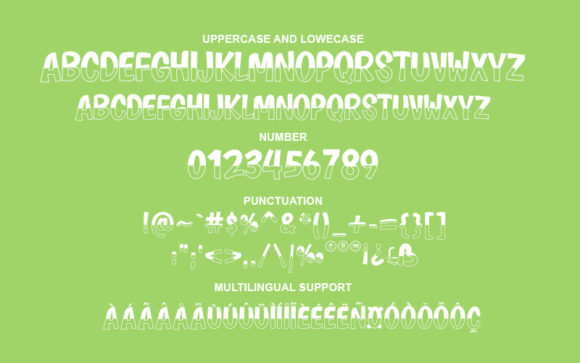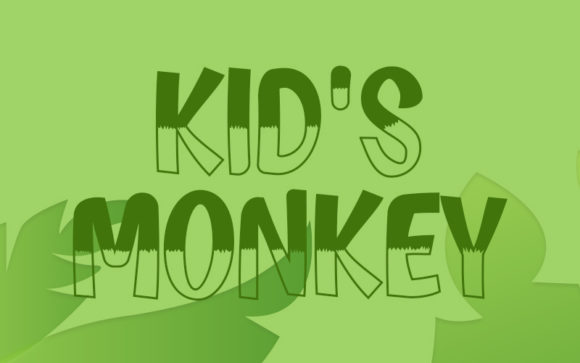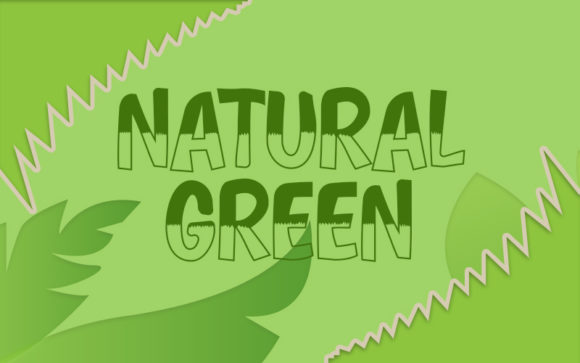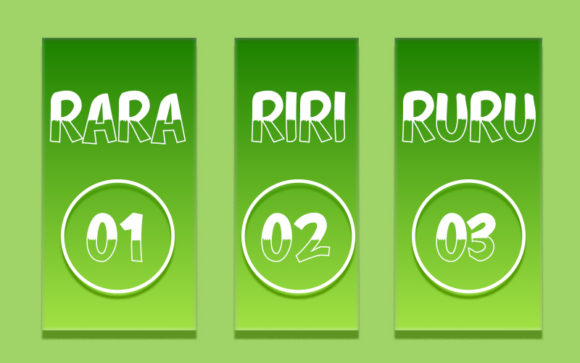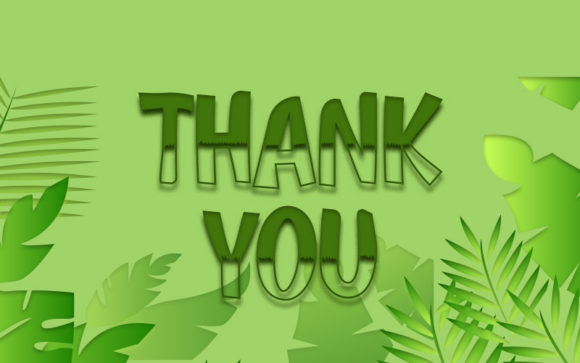
Introduction to Junggle Font
Have you ever been working on a creative project and felt like something was missing? The perfect font can make all the difference, transporting your idea from good to great. For designers, finding the right font can be a game-changer, elevating a design from bland to grand.
That’s where the Junggle Font comes in – a delightful display font that brings a touch of whimsy to any project. Its childlike playfulness is contagious, making it an ideal choice for kids and school projects, but its charm extends far beyond those realms. Whether you’re working on a logo, brochure, or social media campaign, this enchanting font is sure to brighten up your design and leave a lasting impression.
Key Features of Junggle Font
- High-quality design with a unique and playful style, perfect for creative projects.
- Transparent background option allows for easy customization and layering in design projects.
- OpenType features for advanced typographic control and flexibility in creative projects.
Honest Review: Junggle Font
I recently came across the Junggle Font, a free design resource that caught my attention. At first glance, I was drawn to its unique and playful style, which I think would be perfect for a creative project that requires a touch of whimsy.
- ✨ High quality: The font’s clarity and definition are impressive, making it suitable for both digital and print media.
- ✨ Transparent background: This feature allows for seamless integration with various design elements, giving designers more flexibility.
- ⚠️ Limited character set: The font only includes a limited set of characters, which might not be ideal for projects that require extensive typography.
- ⚠️ Not suitable for complex texts: The Junggle Font’s unique style might not be the best choice for complex texts or body copy, as it can be difficult to read.
Overall, I think the Junggle Font is a great addition to any designer’s toolkit. While it has its limitations, its unique style and high quality make it perfect for creative projects that require a touch of personality.
Tips for Getting the Most Out of Junggle Font
Common Use Cases for Junggle Font
Junggle Font is perfect for a variety of creative projects, including logos, posters, and social media graphics. Its high-quality design makes it a great choice for professional designers, while its free download makes it accessible to designers on a budget.